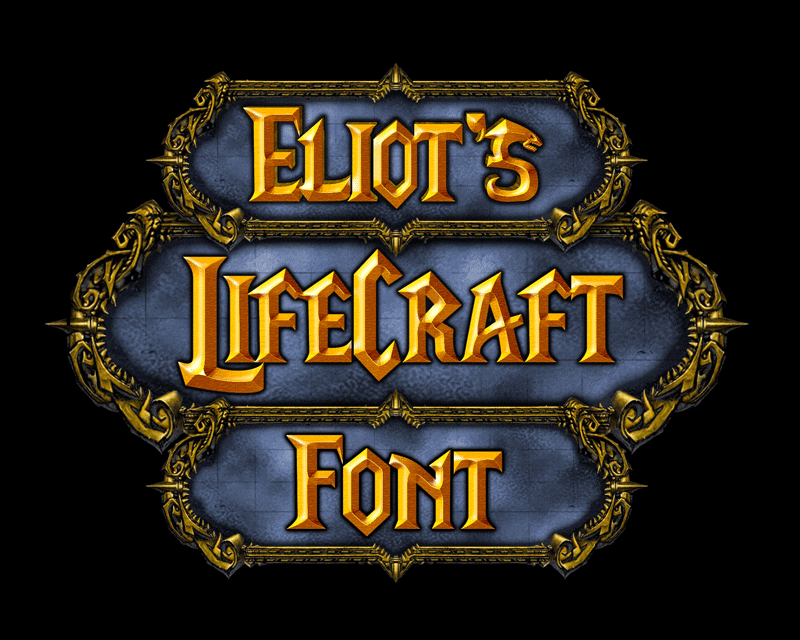
Font name: | LifeCraft |
Author: | Eliot Truelove |
Note by Eliot Truelove | |
This is the font for the popular video game series "Warcraft", thus being the Warcraft Font. Please donate to my paypal. i am a volunteer in more ways than one so donations would be greatly appreciated. |